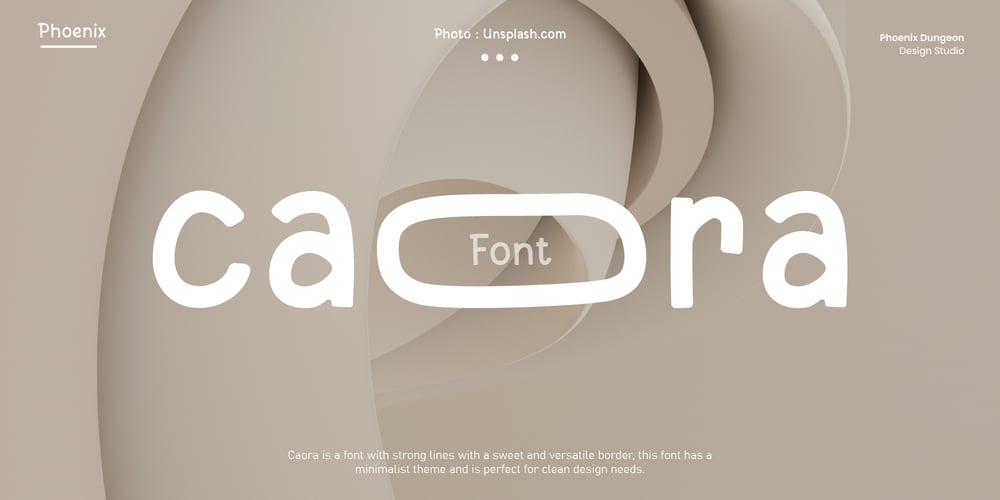
Caora
Caora font
Caora Font Family was designed by Alif Naufal Muzakki and published by Phoenix Group. Caora contains 1 styles and family package options. Caora is a font with strong lines with a sweet and versatile border, this font has a minimalist theme and is perfect for clean design needs.